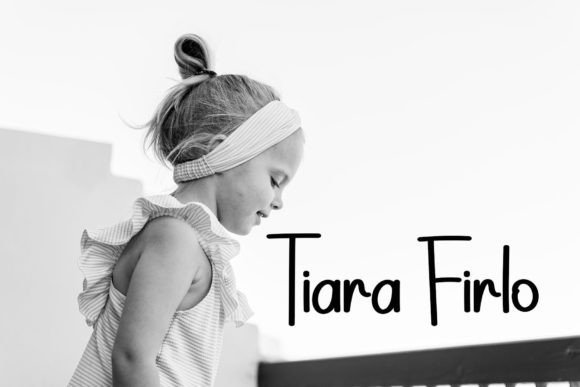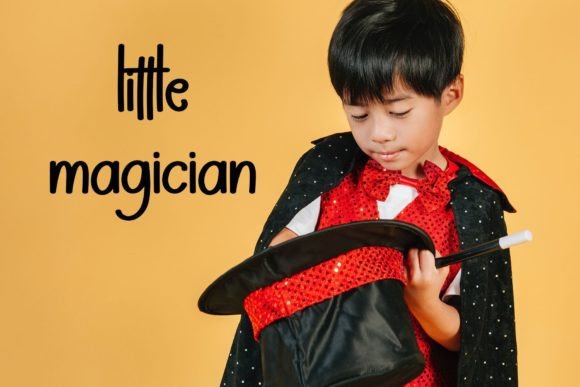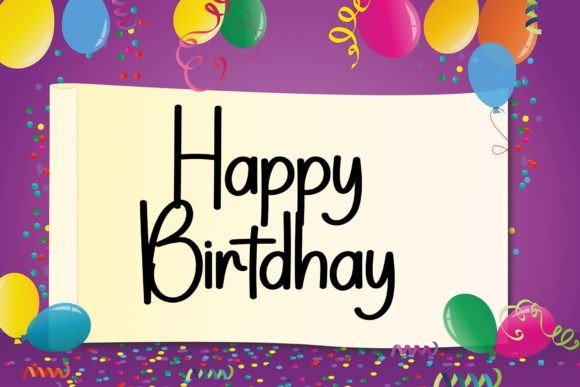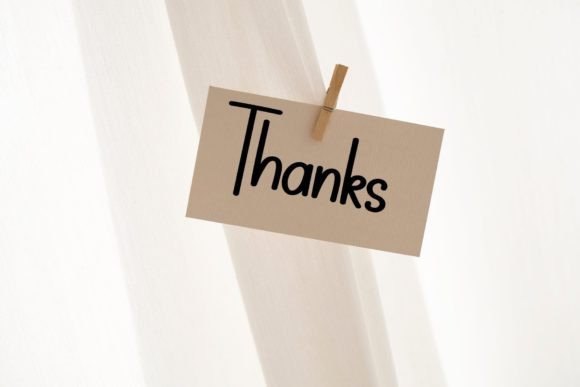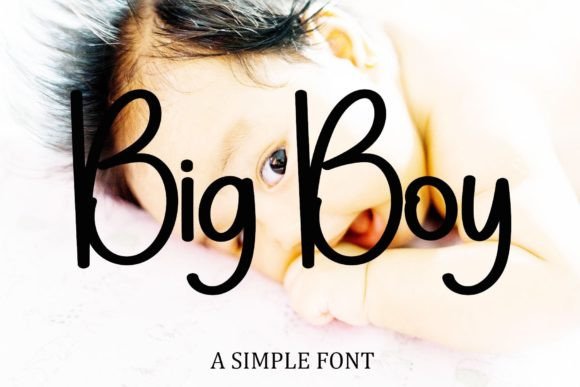
The Big Boy Font: A Sweet and Luxurious Addition to Your Design Projects
I’ll never forget the time I was working on a luxury branding project for a high-end jewelry client. I had spent hours perfecting the logo, but something was missing. The design felt flat, and I couldn’t quite put my finger on what it needed. That’s when I stumbled upon the Big Boy font. This sweet and beautiful handwritten font instantly elevated my design, adding a touch of sophistication and elegance. In this article, I’ll share my experience with the Big Boy font, its features, and how to make the most of it in your design projects.
A Personal Review: What I Love About Big Boy Font
Here’s what I love about the Big Boy font:
• ✨ Sweet and Beautiful Handwriting: The Big Boy font features characters that dance along the baseline, giving it a playful and luxurious feel.
• ✅ Luxury Spark: This font adds a touch of sophistication to any design project, making it perfect for high-end branding, packaging, and marketing materials.
• 🌈 Versatility: Big Boy font comes with a range of OpenType features, glyphs, and stylistic alternates, making it versatile for various design applications.
While the Big Boy font is amazing, there are a few things to keep in mind:
• 🤔 Limited Use in Small Sizes: Due to its intricate details, the Big Boy font may not be suitable for small sizes, such as body text or captions.
• ⚠️ Kerning Issues: As with any font, you may encounter kerning issues, especially when using the font at larger sizes.
The Big Boy font was inspired by the classic handwritten fonts of the early 20th century. The designer, known for their love of vintage typography, aimed to create a font that would evoke a sense of luxury and sophistication. With its intricate details and elegant feel, the Big Boy font has become a popular choice among designers and crafters.
What is the Big Boy font best suited for? The Big Boy font is perfect for luxury branding, high-end marketing materials, packaging, and digital marketing.